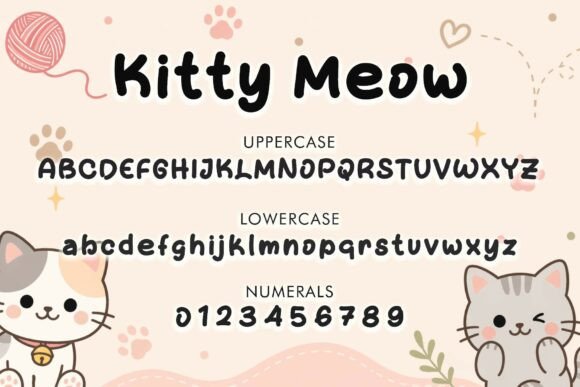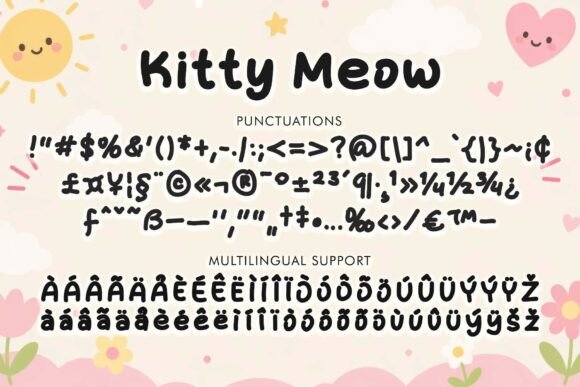
Introduction to Kitty Meow Font Font
Fonts play a crucial role in design, and the Kitty Meow Font font is a typeface that brings both character and versatility to any project. Whether you’re working on a branding project, a website, or a print design, the Kitty Meow Font font offers a unique style that can elevate your work.
โKitty Meowโ is a cute and playful display font.
This font is equipped with uppercase, lowercase, numerals, punctuation, and multilingual support Very suitable for posters, logos, childrenโs toys, banners, stickers, branding, animals, book covers, film titles, cats, comics, cartoons, summer, spring, Easter, Christmas, back to school, holidays and others.
Key Features of Kitty Meow Font Font
- โ High-quality typeface designed for professional use
- โ Includes a wide range of glyphs and characters
- โ Ideal for logos, branding, websites, and print
Why Choose Kitty Meow Font Font?
The Kitty Meow Font font is more than just a typeface โ it’s a design tool that helps you communicate your message with style and clarity. Its unique character set and versatile design make it suitable for a wide range of applications, from elegant invitations to bold headlines.
With its carefully crafted letterforms and balanced proportions, the Kitty Meow Font font ensures readability and visual appeal across all mediums.
What makes Kitty Meow Font font special?
The Kitty Meow Font font stands out with its unique design, exceptional readability, and versatility across various design applications.